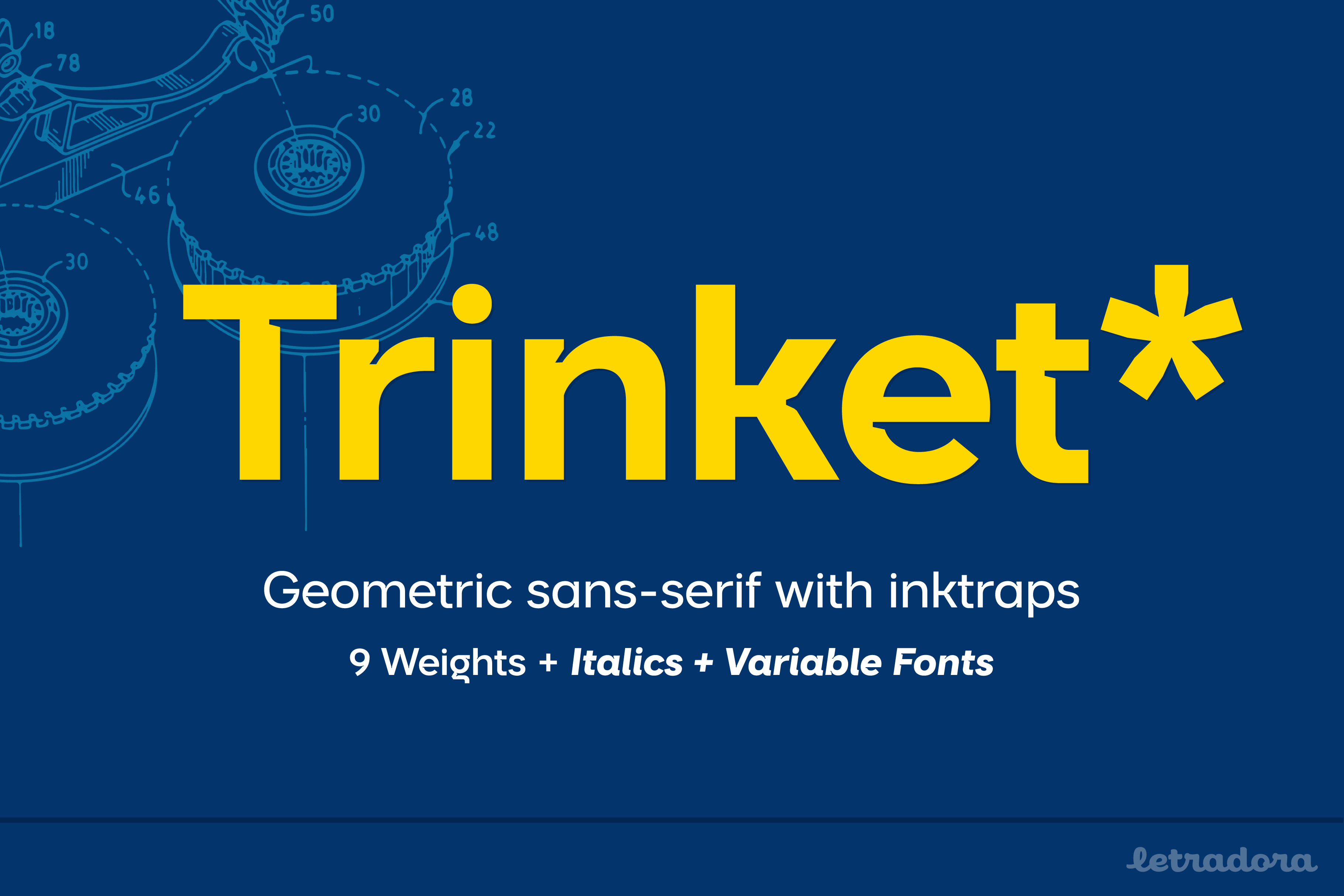
Trinket inktrap font
Trinket is a geometric sans-serif with modern proportions and subtle inktraps that add clarity and character. Designed as a versatile type family, it offers nine weights with true italics, giving you precise control across branding, editorial work, and digital interfaces.
Built for real-world use, Trinket supports 130+ languages and includes professional features such as small caps, stylistic alternates, tabular figures, and punctuation tuned for both text and display settings.
Whether you’re creating a refined logotype, a strong headline, or readable, contemporary body copy, Trinket delivers consistency, personality, and dependable performance across print and screen.